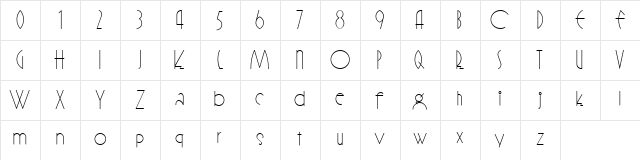
OKChoraleNF BETA Regular Font Preview
OKChoraleNF BETA Regular
OKChoraleNF BETA Regular Font Details
Design Context for OKChoraleNF BETA Typeface
OKChoraleNF BETA is a composed and adaptable typeface that performs quietly and consistently across a wide range of design contexts.